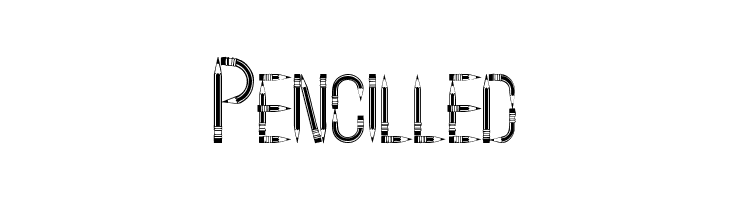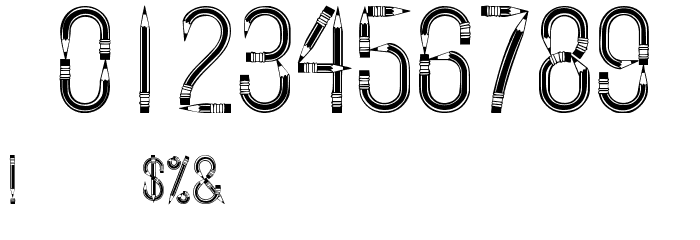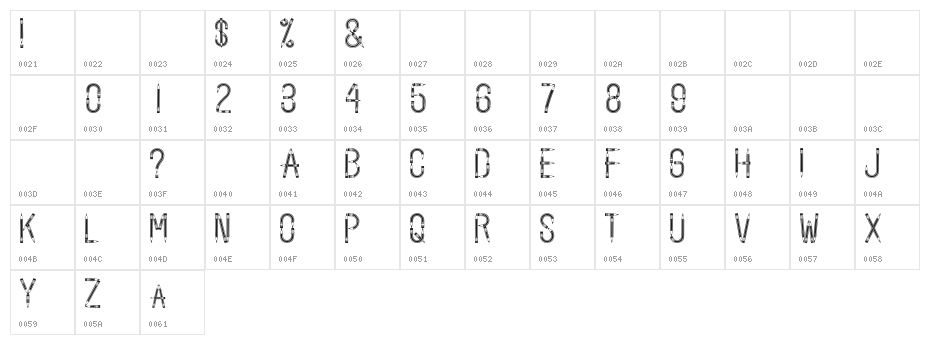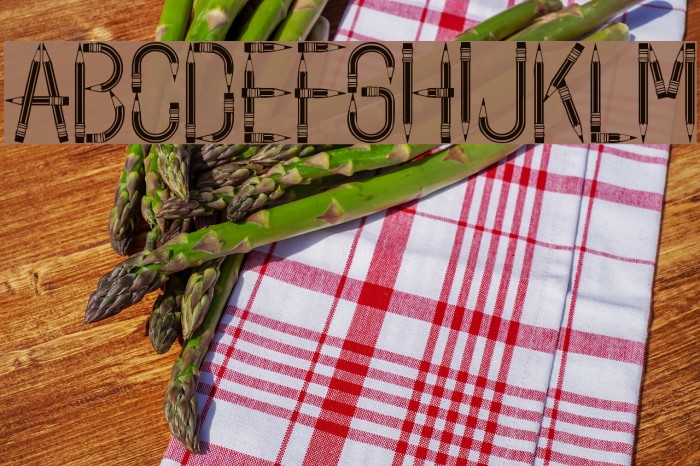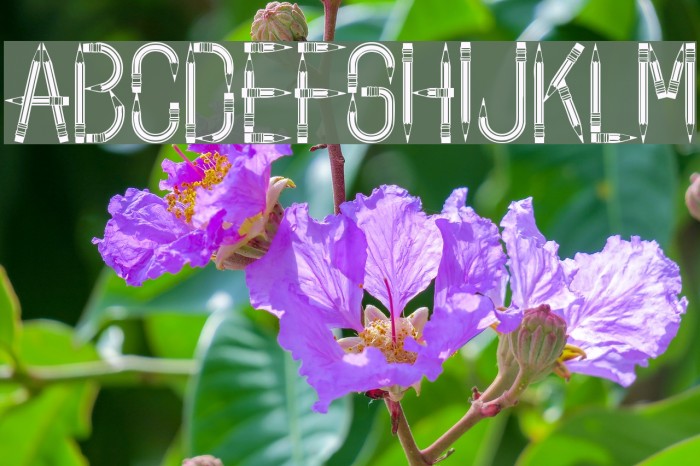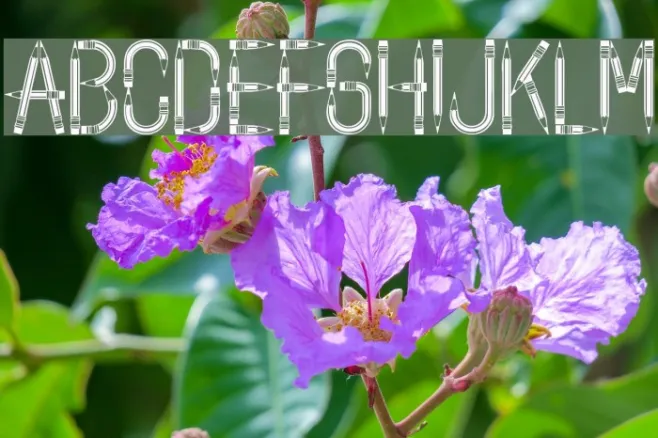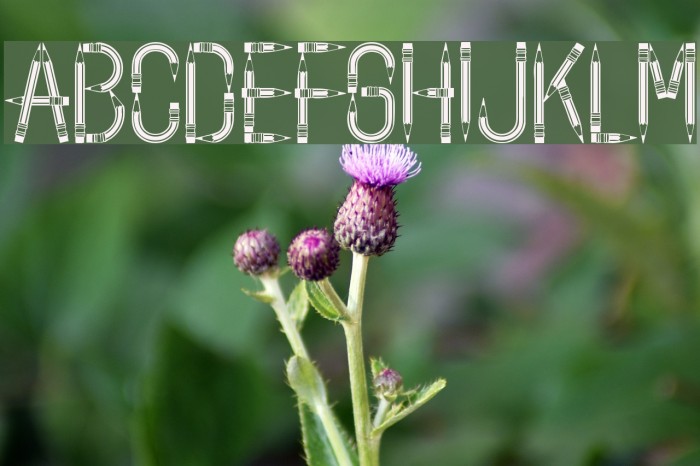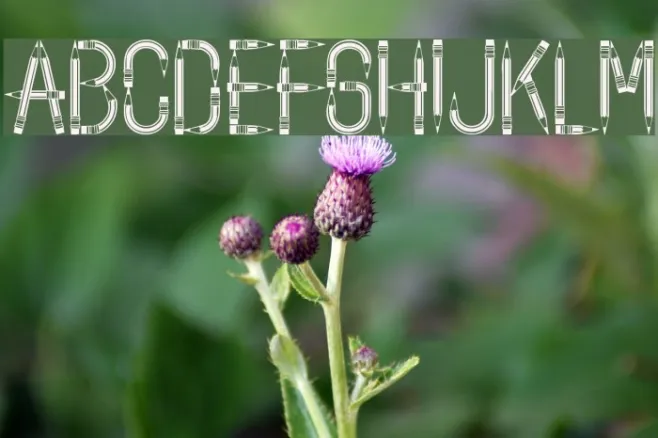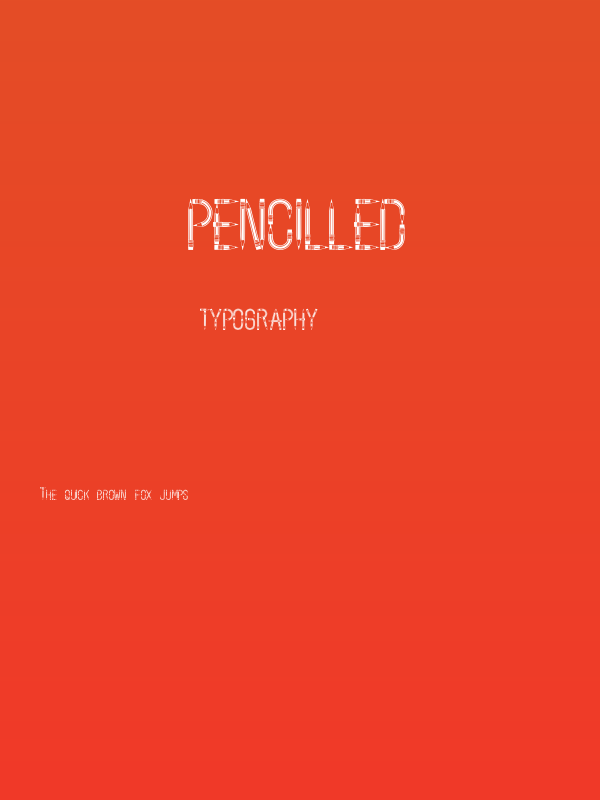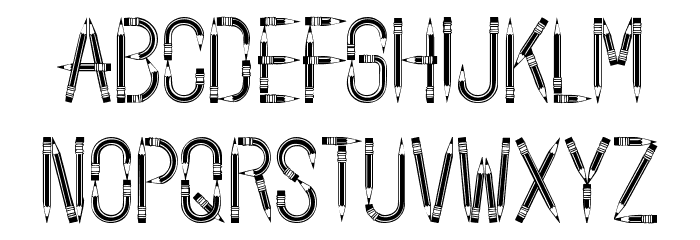
Pencilled Font
Pencilled Description
This font features a unique and playful design where each character is crafted to resemble a pencil. The strokes mimic the texture and appearance of a pencil, complete with detailed shading and pointed ends. The uppercase and lowercase letters maintain a consistent style, with the pencil motif extending to numbers and special characters. The design is intricate, with a high level of detail that captures the essence of a pencil's form. This font is both decorative and thematic, making it ideal for creative and educational projects.
Use CaseHeadlines, Logos, Creative projects
Proposed ProjectsIdeal for educational materials, children's books, art projects, and creative branding.